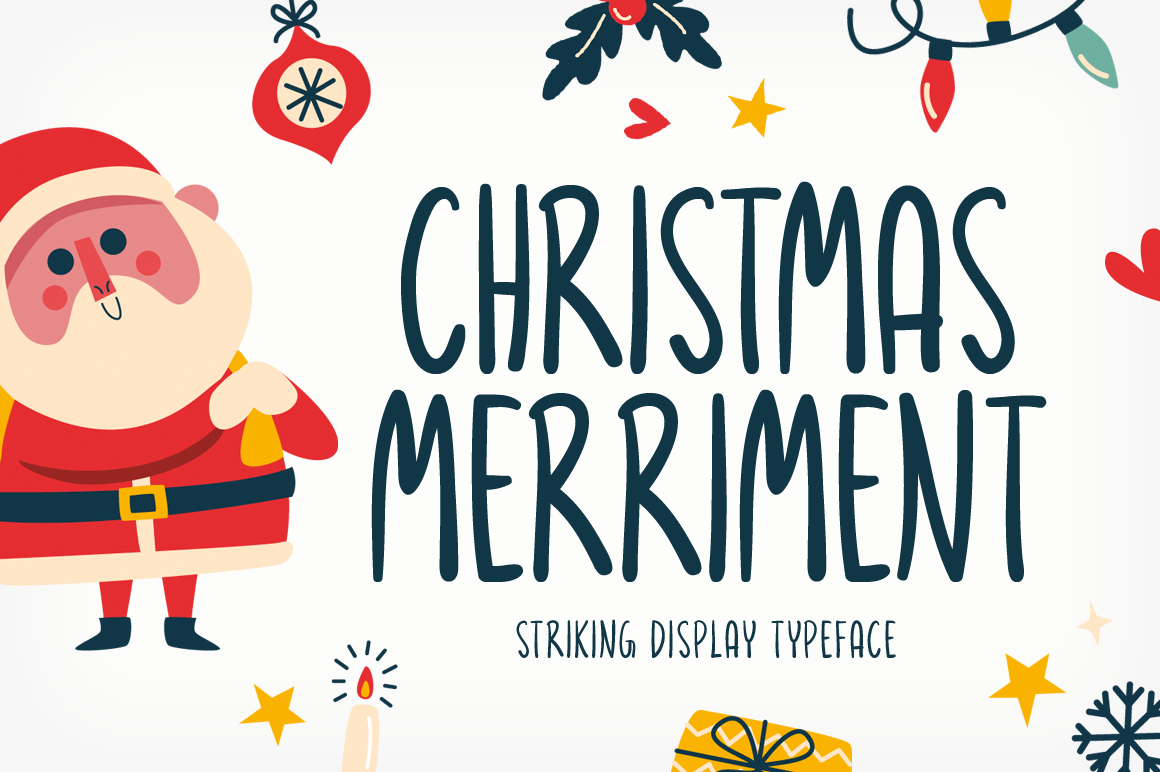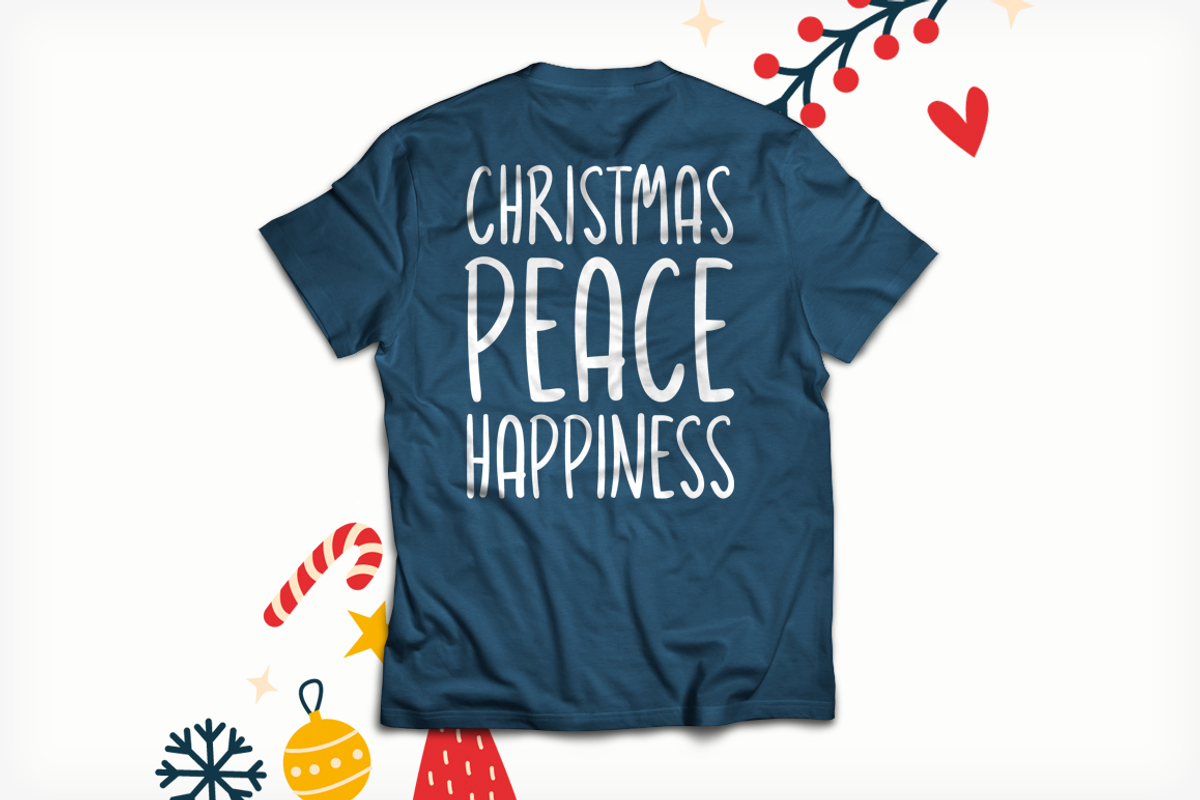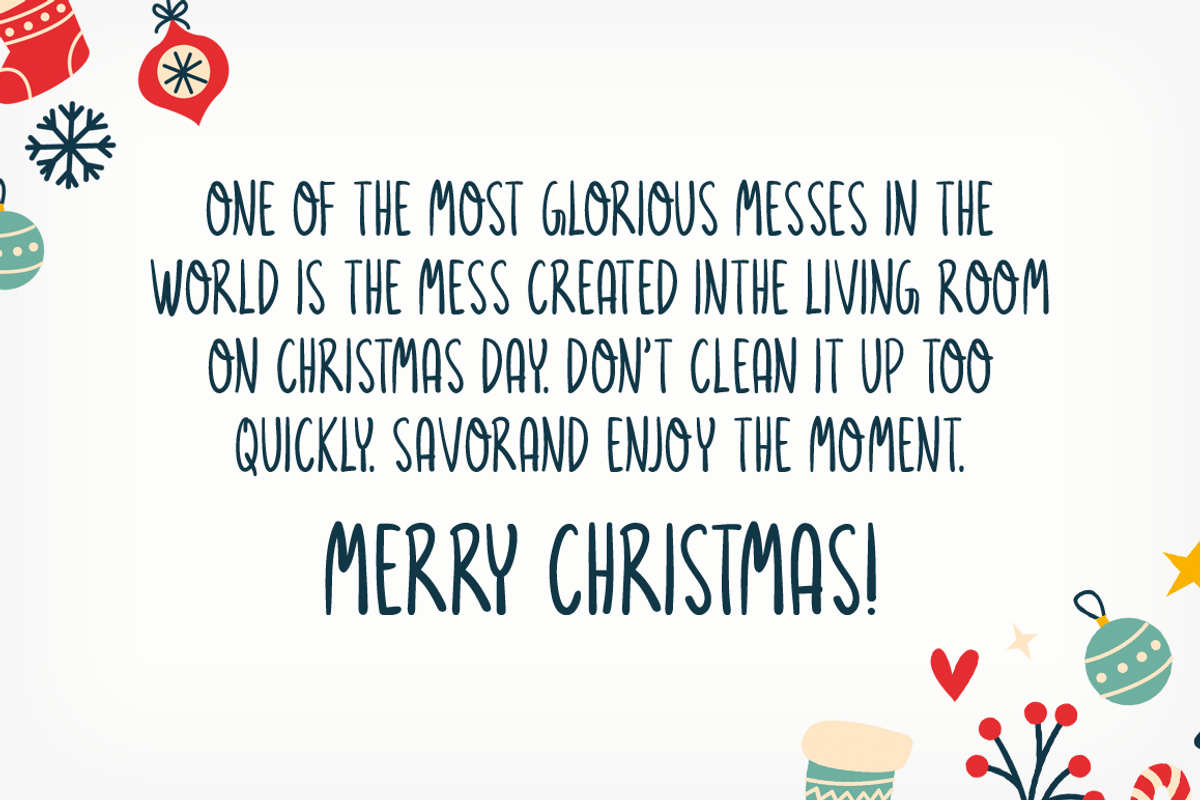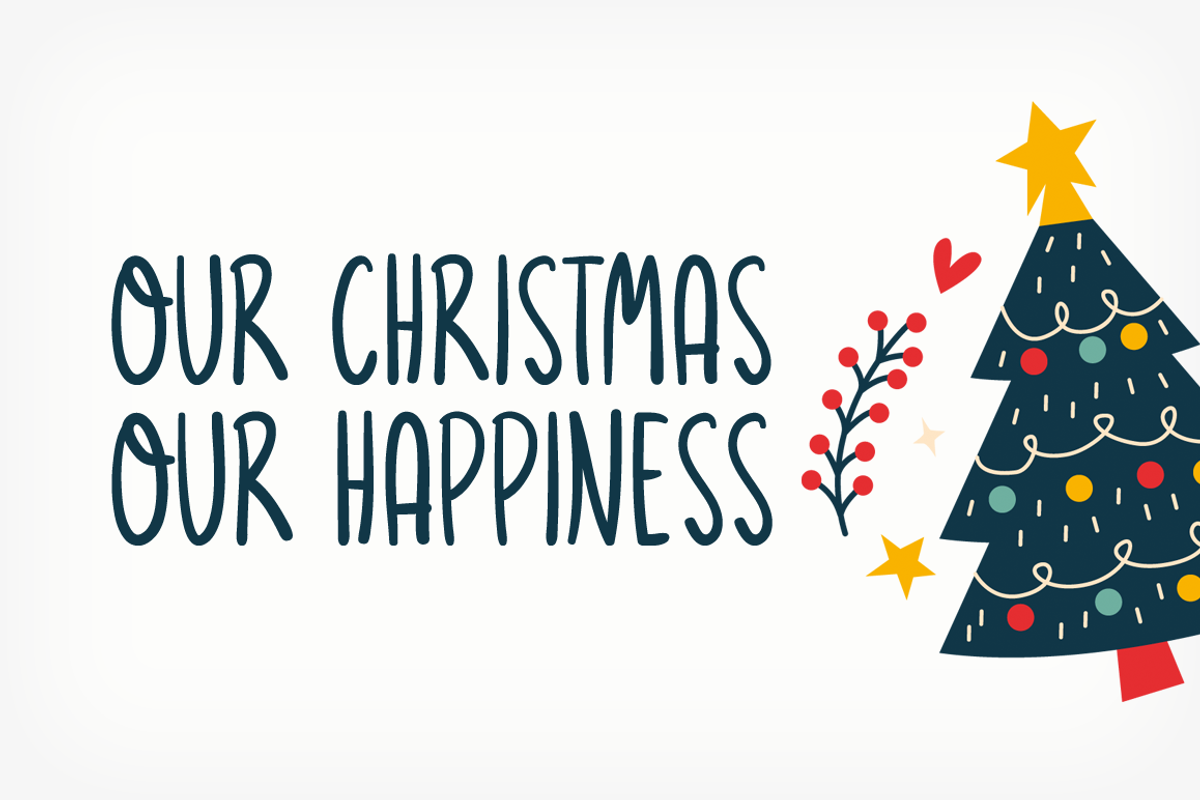
Christmas Merriment Typeface
Christmas Merriment!
Christmas Merriment is a brand new display font. Christmas Merriment is perfectly suited for stationery, logos, t-shirt, paper, print design, website header, photo frame, flyer, music cover, poster, image slider, and much more.